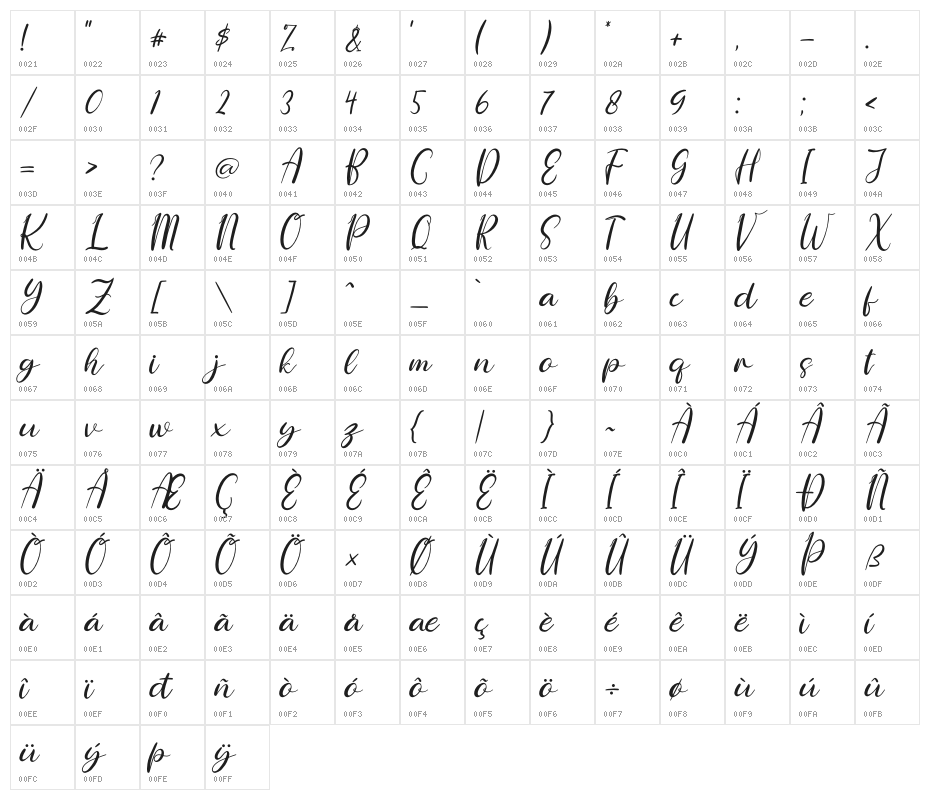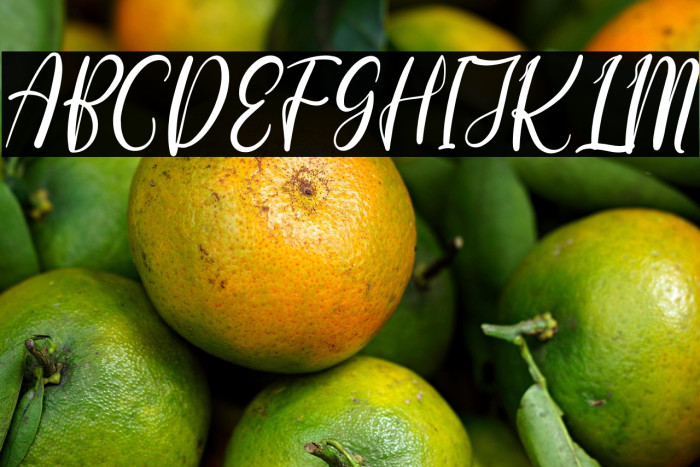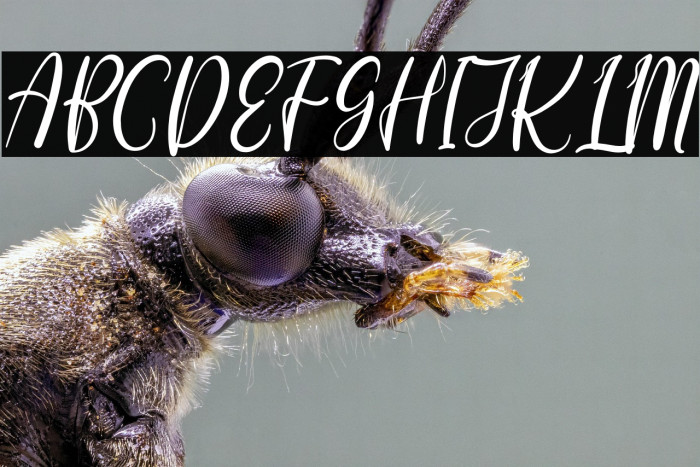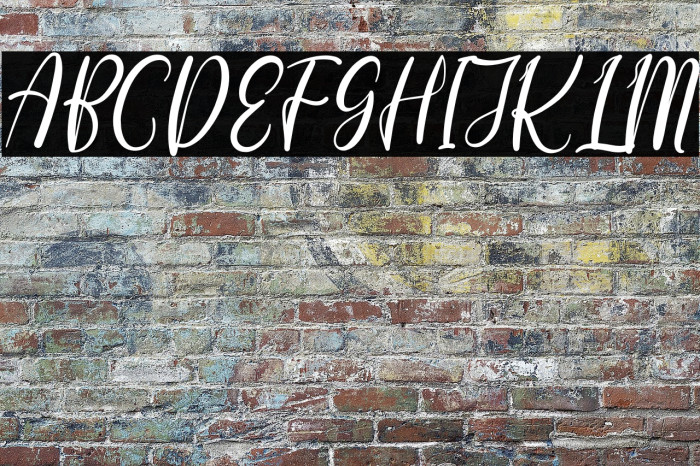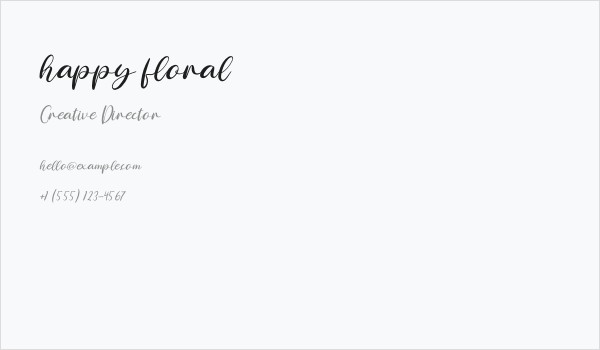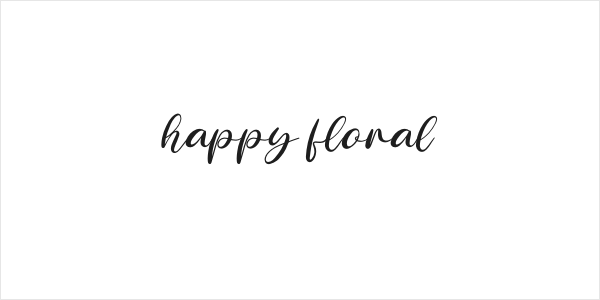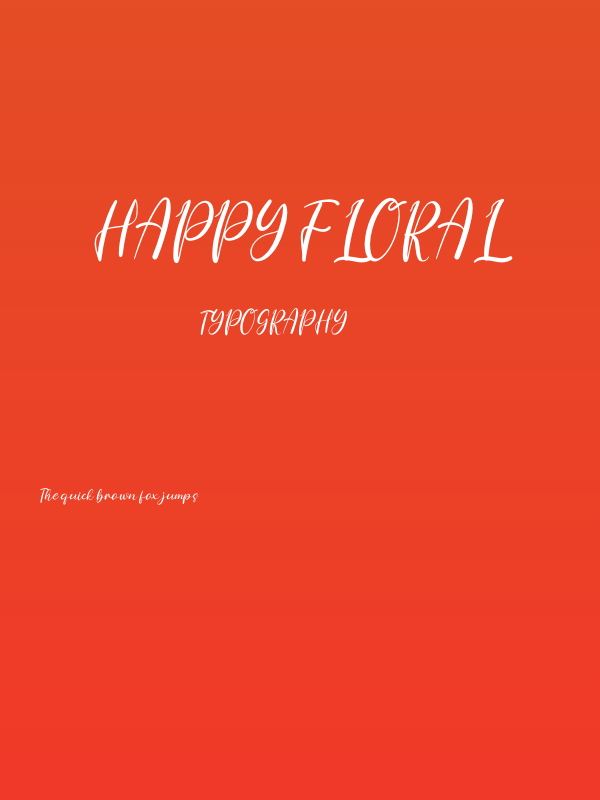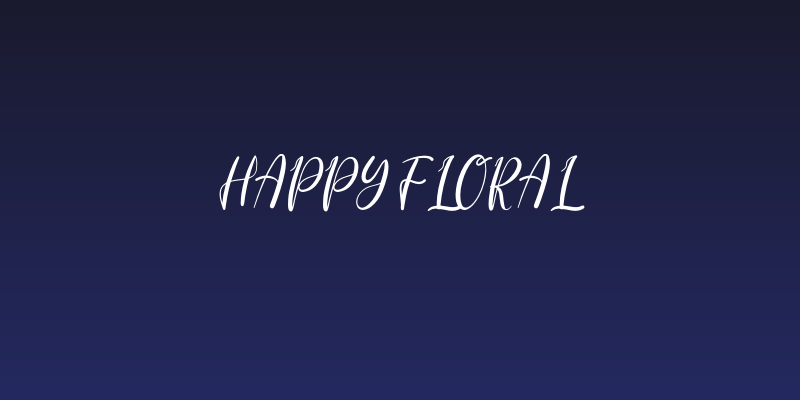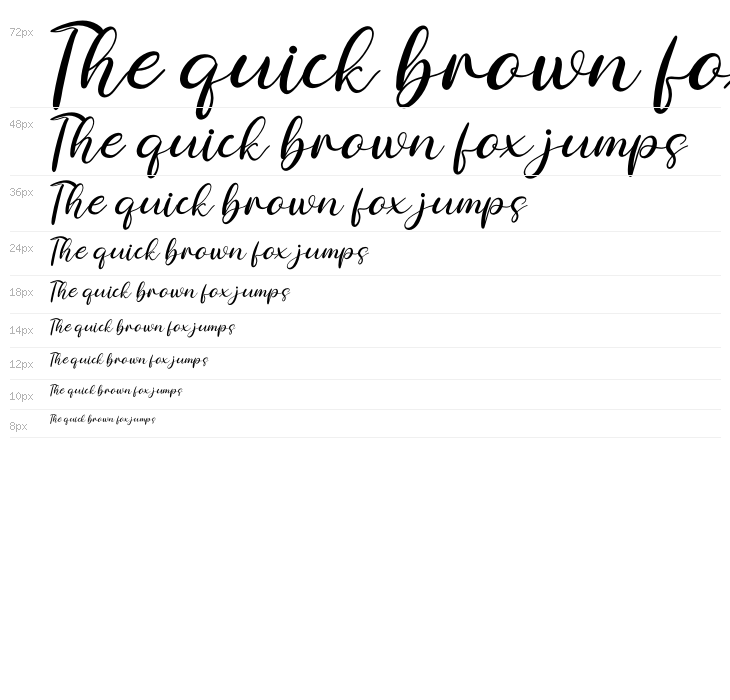
happy floral Font
happy floral Description
This font features a flowing, cursive style with elegant, sweeping strokes that give it a handwritten appearance. The uppercase letters are bold and expressive, with a slight slant that adds a dynamic feel. The lowercase letters maintain a consistent flow, enhancing the script-like quality. Numbers and special characters are designed to match the overall aesthetic, ensuring a cohesive look across all text elements. The font's playful yet sophisticated style makes it suitable for creative projects that require a personal touch.